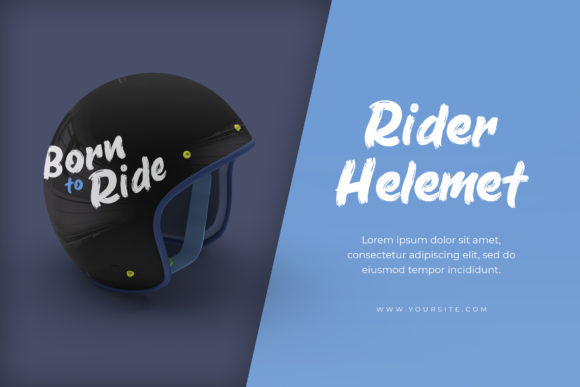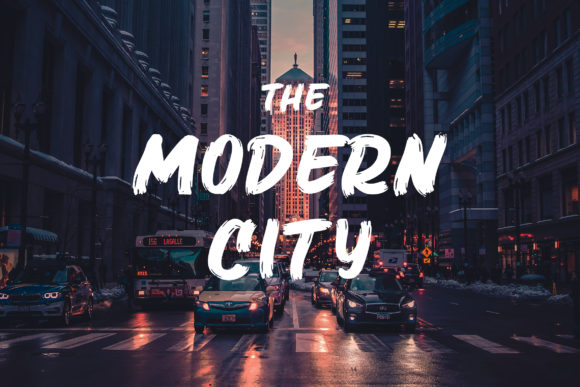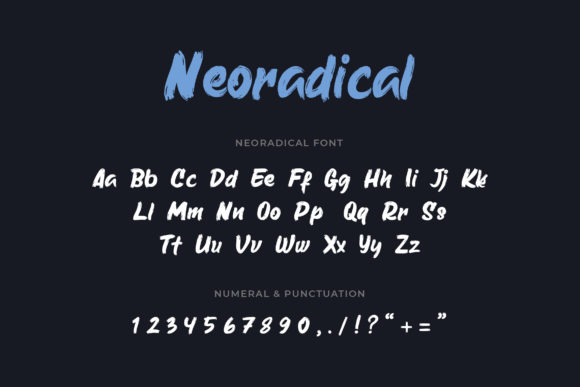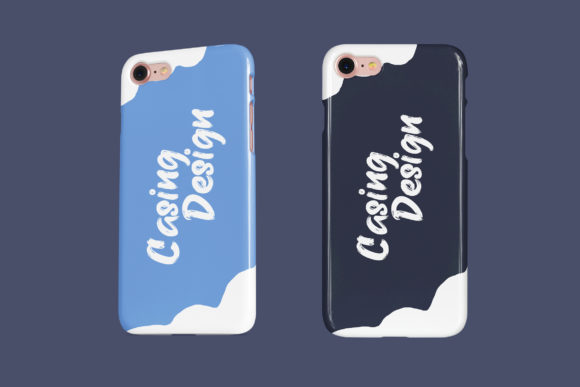
Introduction to Neoradical Font
Remember that moment when you’re brainstorming for a creative project and you need the perfect font to make your design stand out? The excitement of scrolling through font libraries, the thrill of discovering a hidden gem, and the satisfaction of finding the perfect match – it’s a feeling that designers know all too well. For those moments, we’d like to introduce you to the Neoradical Font, a high-quality, brushed handwritten font that’s sure to elevate your designs.
With its casual and fun style, the Neoradical Font is the perfect design resource for a wide range of creative projects. Whether you’re working on a poster, an urban project, or a headline, this font is sure to bring a touch of personality and whimsy to your design. And the best part? It’s available for free download, complete with a transparent background, making it easy to incorporate into your project.
Key Features of Neoradical Font
- High-quality design: Neoradical Font is a premium design resource, perfect for creative projects that demand attention to detail.
- Large character set: This font includes a large character set, covering a wide range of languages and characters.
- Unique, bold design: The font’s bold and modern design makes it an excellent choice for creative projects that require a statement-making font.
Honest Review: Neoradical Font
As a designer, I’m always on the lookout for high-quality design resources that can elevate my creative projects. Recently, I stumbled upon the Neoradical Font, and I’m excited to share my honest review with you.
What works well: ✨ The Neoradical Font is incredibly versatile and can be used for a wide range of creative projects, from branding and logos to digital products and presentations. Its unique, modern design makes it a standout in the world of fonts.
Some notable features of the Neoradical Font include its transparent background, which makes it easy to layer and customize. It’s also a free download, which is a huge bonus for designers on a budget.
However, there are a few limitations to consider: ⚠️ The font is not as extensive as some other popular font families, which may limit its usability for certain projects. Additionally, the font’s modern design may not be to everyone’s taste.
Overall, I’m impressed with the Neoradical Font and would definitely recommend it to designers looking for a high-quality, free design resource. While it may not be perfect, its unique design and transparent background make it a valuable addition to any design toolkit.
- Modern, unique design
- Not as extensive as some other font families
- May not be to everyone’s taste
Tips for Getting the Most Out of Neoradical Font
When using Neoradical Font, make sure to pair it with a transparent background to achieve a clean and modern look. You can also experiment with different font sizes and colors to create visual interest and emphasis. Additionally, consider using the font in combination with other design elements, such as images and shapes, to create a cohesive and high-quality design.
Neoradical Font is a versatile font that can be used in a variety of creative projects, including logos, brochures, and social media graphics. It’s also a great font for creating high-quality documents, presentations, and websites. With its free download option, you can easily access and use this font in your design projects.